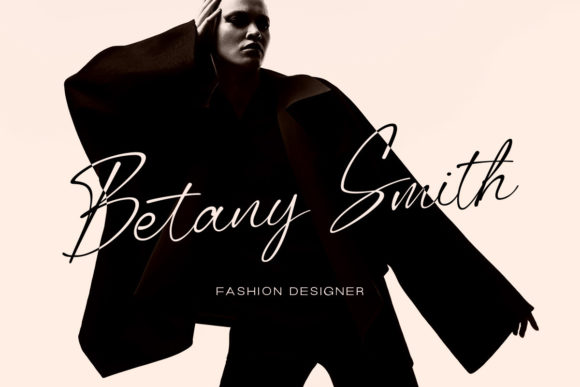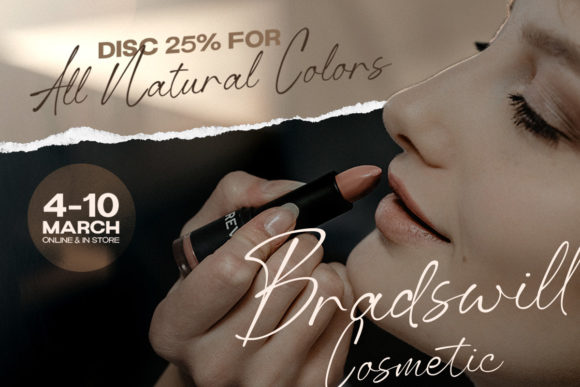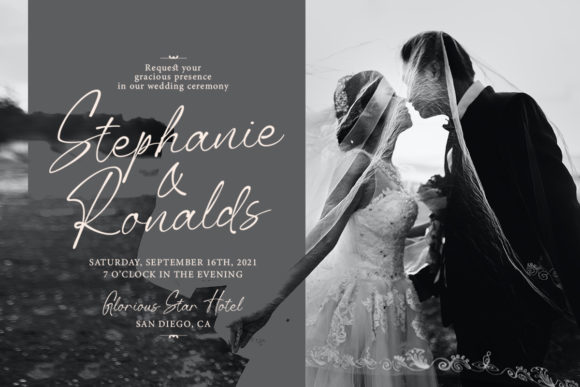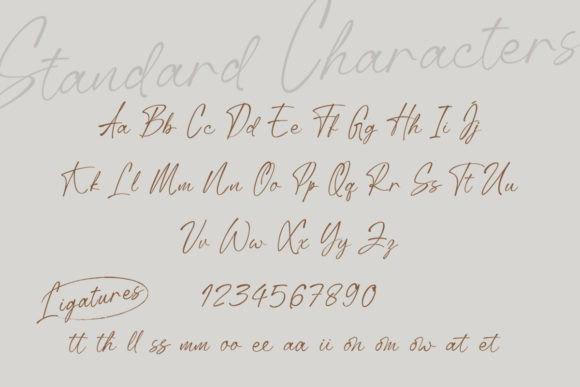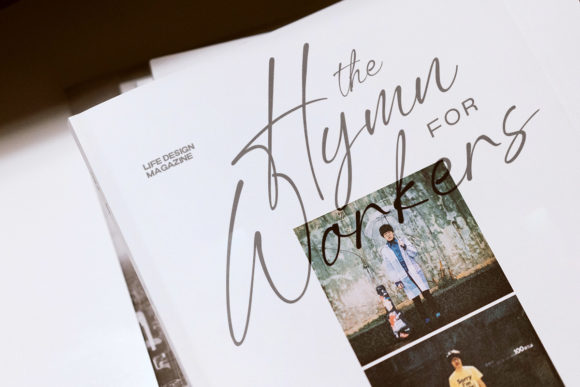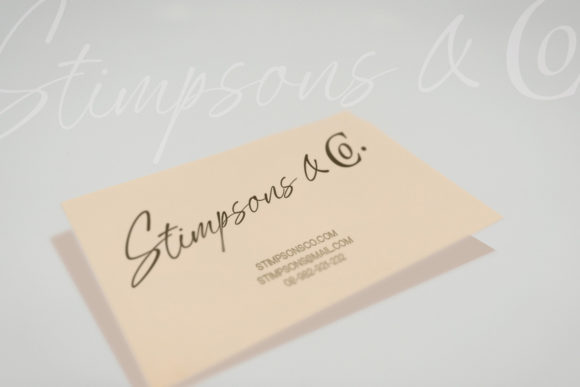
Introducing Anstally Script Font: Elevate Your Designs with Timeless Elegance
Are you a designer or crafter looking for a font that can add a touch of sophistication and elegance to your work? Look no further than Anstally Script Font. This lovely and timeless handwritten font is perfect for creating eye-catching logos, branding, and quotes that will leave a lasting impression.
The Beauty of Anstally Script Font
Anstally Script Font boasts a unique and beautiful touch that sets it apart from other fonts. Every letter is carefully crafted to bring a sense of warmth and personality to your designs. The font’s handwritten style gives it a personal and approachable feel, making it perfect for creating designs that resonate with your audience.
With Anstally Script Font, the design possibilities are endless. Whether you’re looking to create a stunning logo, a cohesive brand identity, or a quote that inspires, this font is the perfect choice. Its versatility and elegance make it suitable for a wide range of design projects, from:
- Quotes and typography
- Stationery and greeting cards
What Makes Anstally Script Font Special?
So, what makes Anstally Script Font so special? Here are just a few reasons why designers and crafters love this font:
- Unique and beautiful touch: Every letter has a distinct and elegant feel that adds a touch of sophistication to your designs.
- Timeless elegance: Anstally Script Font has a classic, timeless quality that ensures your designs will never go out of style.
- Handwritten style: The font’s handwritten style gives it a personal and approachable feel that’s perfect for creating designs that connect with your audience.
- Versatility: Anstally Script Font is suitable for a wide range of design projects, from logos and branding to quotes and typography.
Tips for Using Anstally Script Font
To get the most out of Anstally Script Font, here are a few tips to keep in mind:
- Use it sparingly: Anstally Script Font is a statement font, so use it sparingly to add emphasis and elegance to your designs.
- Pair it with other fonts: Experiment with pairing Anstally Script Font with other fonts to create a unique and visually appealing design.
- Play with colors and textures: Add depth and interest to your designs by experimenting with different colors and textures.
Anstally Script Font is a beautiful and timeless handwritten font that’s perfect for designers and crafters looking to add a touch of elegance and sophistication to their work. With its unique and beautiful touch, versatility, and handwritten style, this font is sure to become a favorite in your design toolkit. So why wait? Download Anstally Script Font today and start creating stunning designs that will leave a lasting impression!